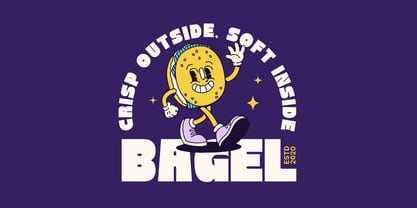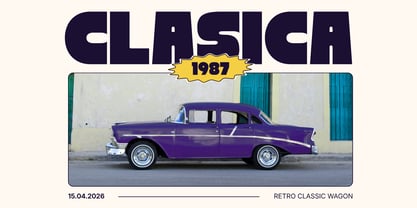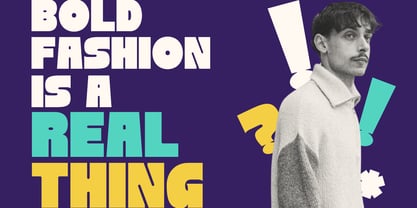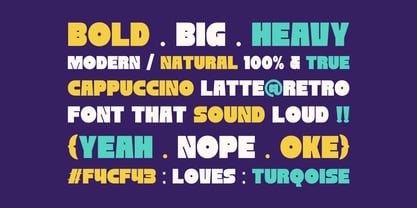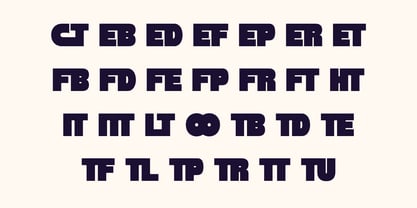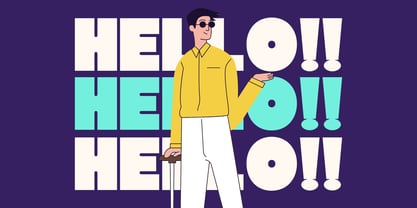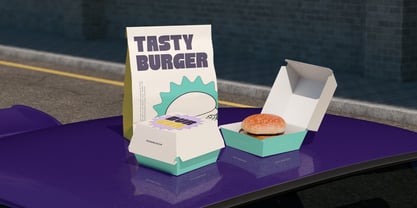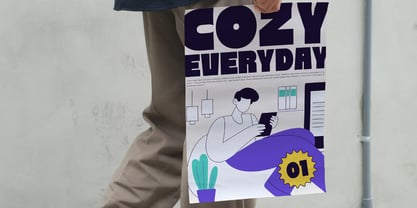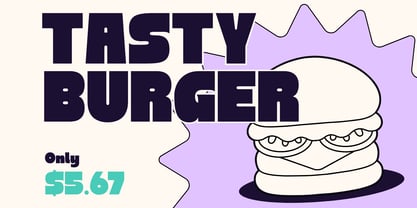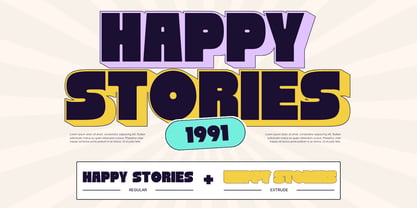
Nebies Retro
von Nirmana Visual
Die Schriftfamilie Nebies Retro wurde von Sigit Dwipa entworfen und von Nirmana Visual veröffentlicht. Nebies Retro enthält 2 Stile und Familienpaketoptionen. Mehr über diese Familie
Turn up the volume on your designs with this ultra-bold retro sans. Built for headlines that refuse to be ignored, this font blends thick proportions with a playful, funky personality. Whether you’re aiming for a retro pop-art vibe or a classic arcade aesthetic, this typeface is your go-to for maximum impact and high-energy nostalgia. Inspired by the sun-drenched aesthetics of the 1970s, this bold sans serif brings a heavy dose of nostalgia to your canvas. With its thick, confident strokes and subtle retro curves, it captures the free-spirited energy of classic street signage. Perfect for making a loud statement with a soulful, vintage twist.